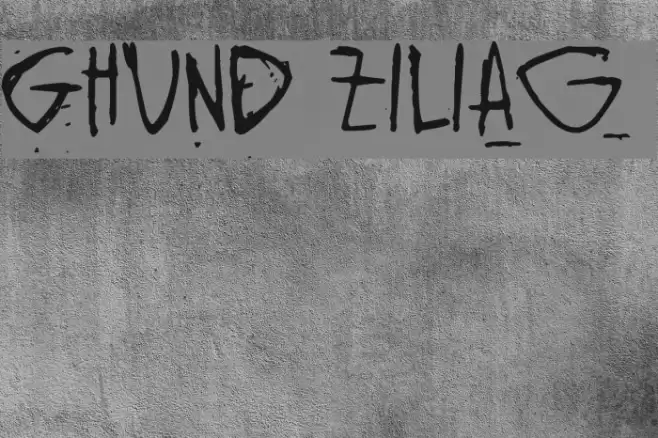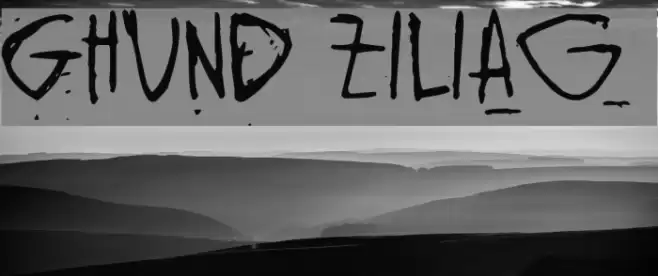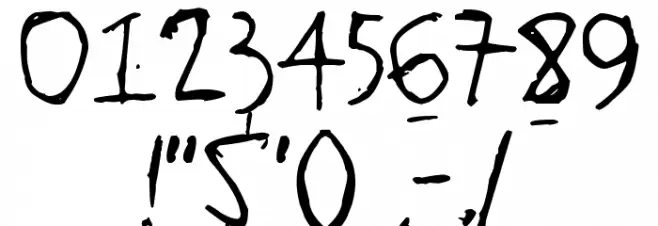
Ghund Ziliag Font
Ghund Ziliag Description
This font exhibits a raw, hand-drawn aesthetic with uneven strokes and a slightly distressed appearance. The characters are bold and expressive, with a sense of spontaneity and energy. The uppercase and lowercase letters maintain a consistent style, while the numbers and special characters add to the font's unique personality. The irregularity in line thickness and the rough edges contribute to a dynamic and artistic feel, making it suitable for creative and unconventional projects.
A bold, hand-drawn font with a raw and expressive style from Uncategorized fonts.
- Proposed Projects: Ideal for artistic projects, album covers, posters, and any design requiring a bold, handmade touch.
- Use Case: Logos, Posters, Artistic projects